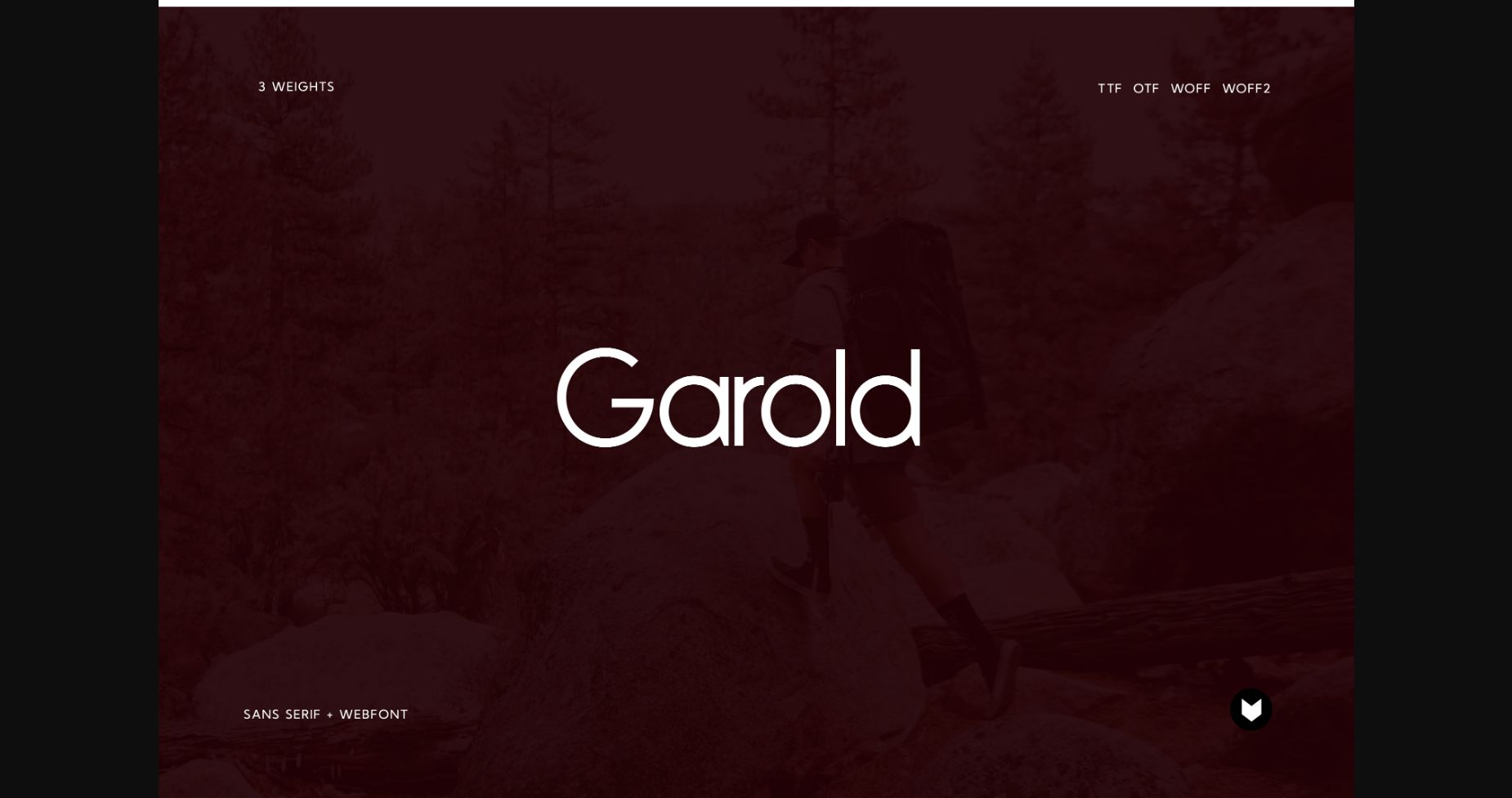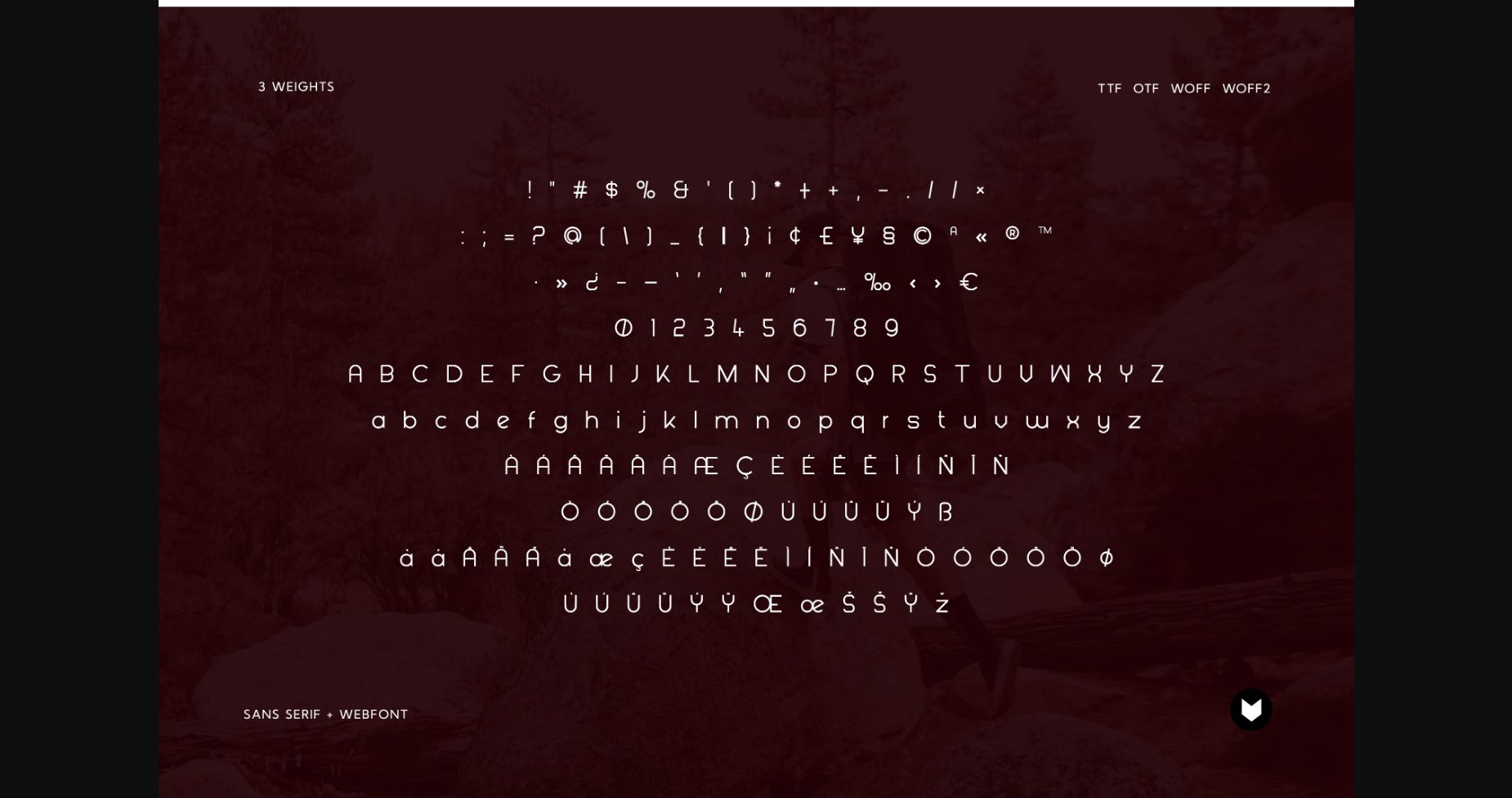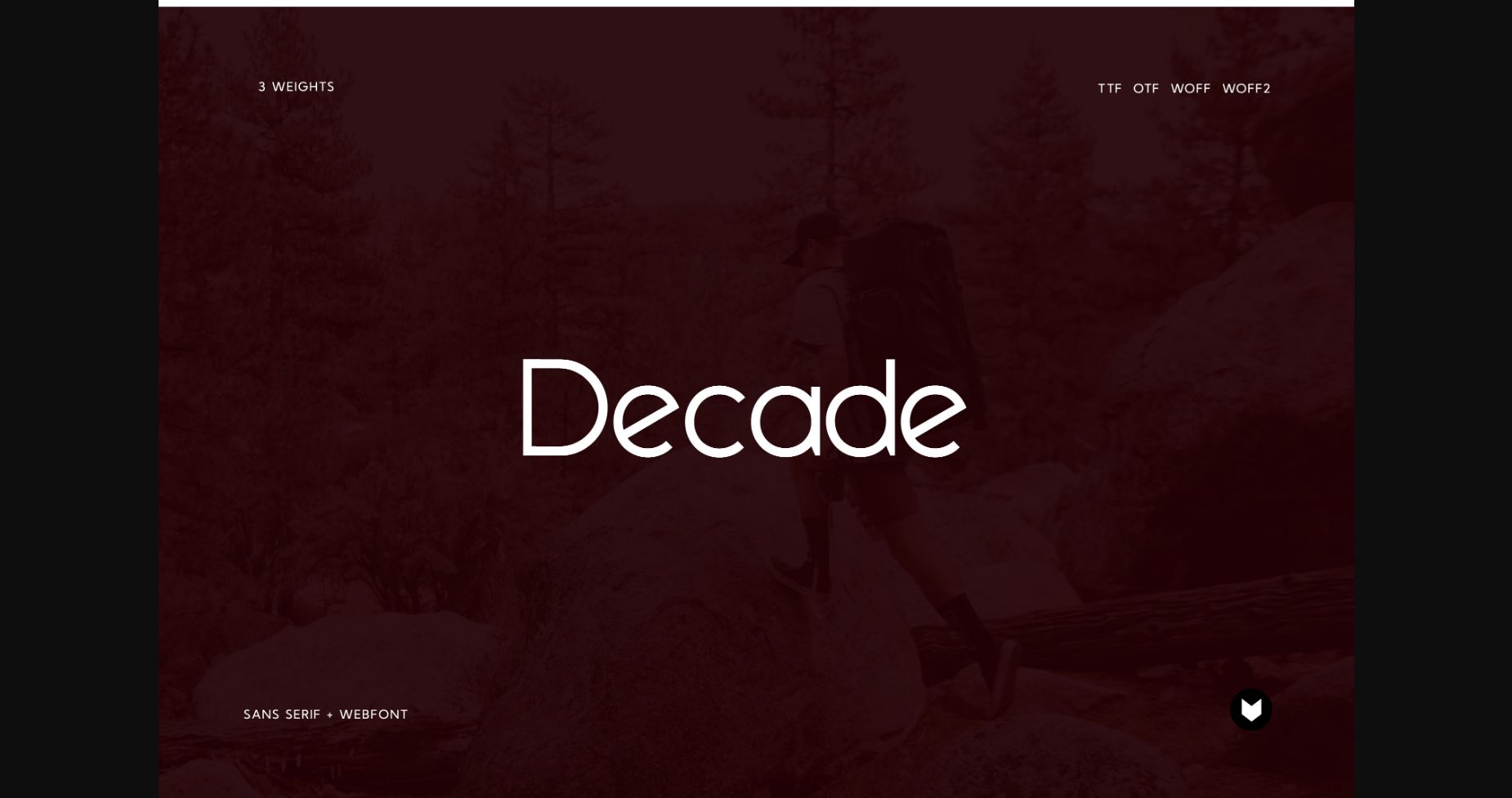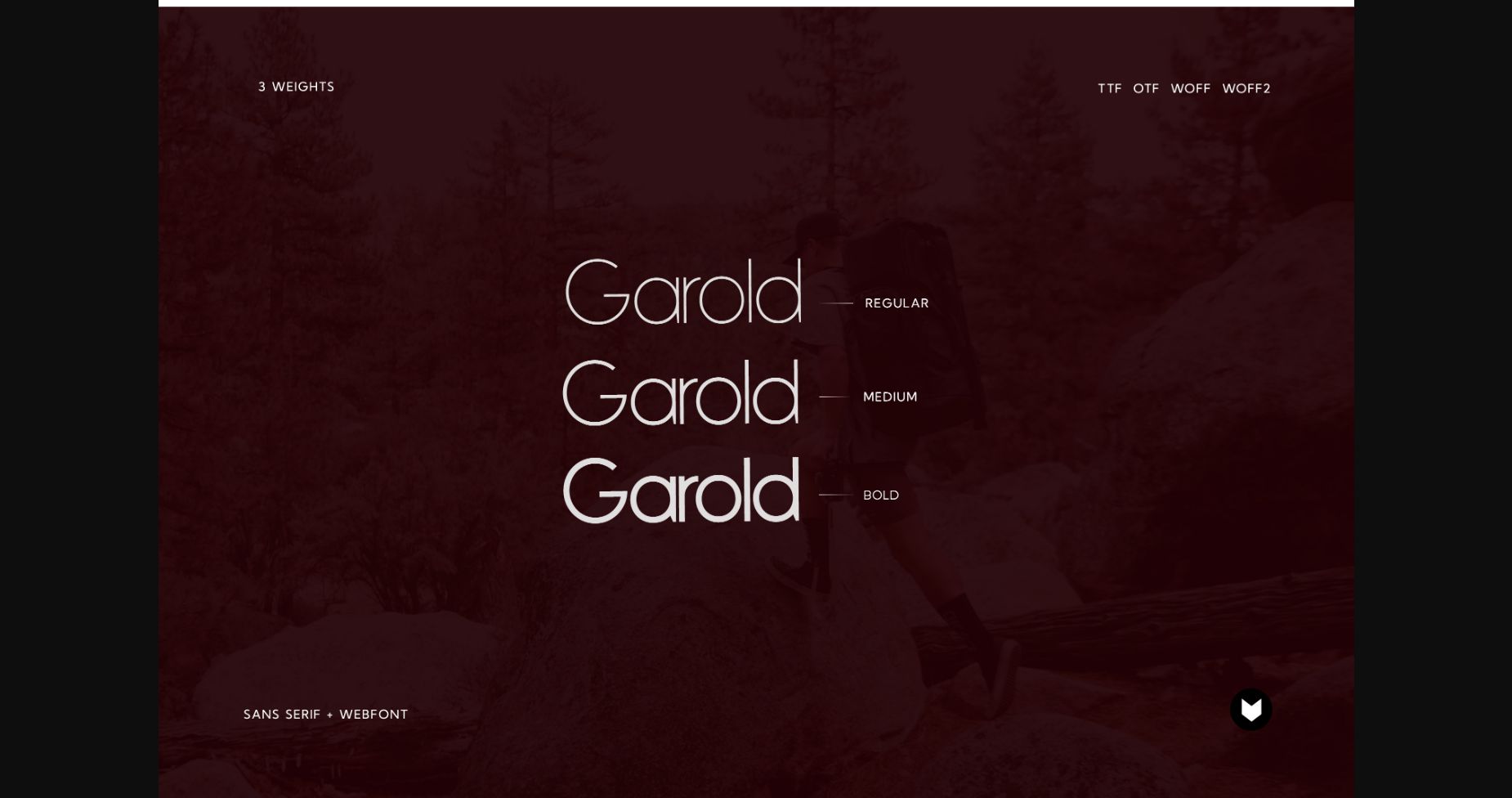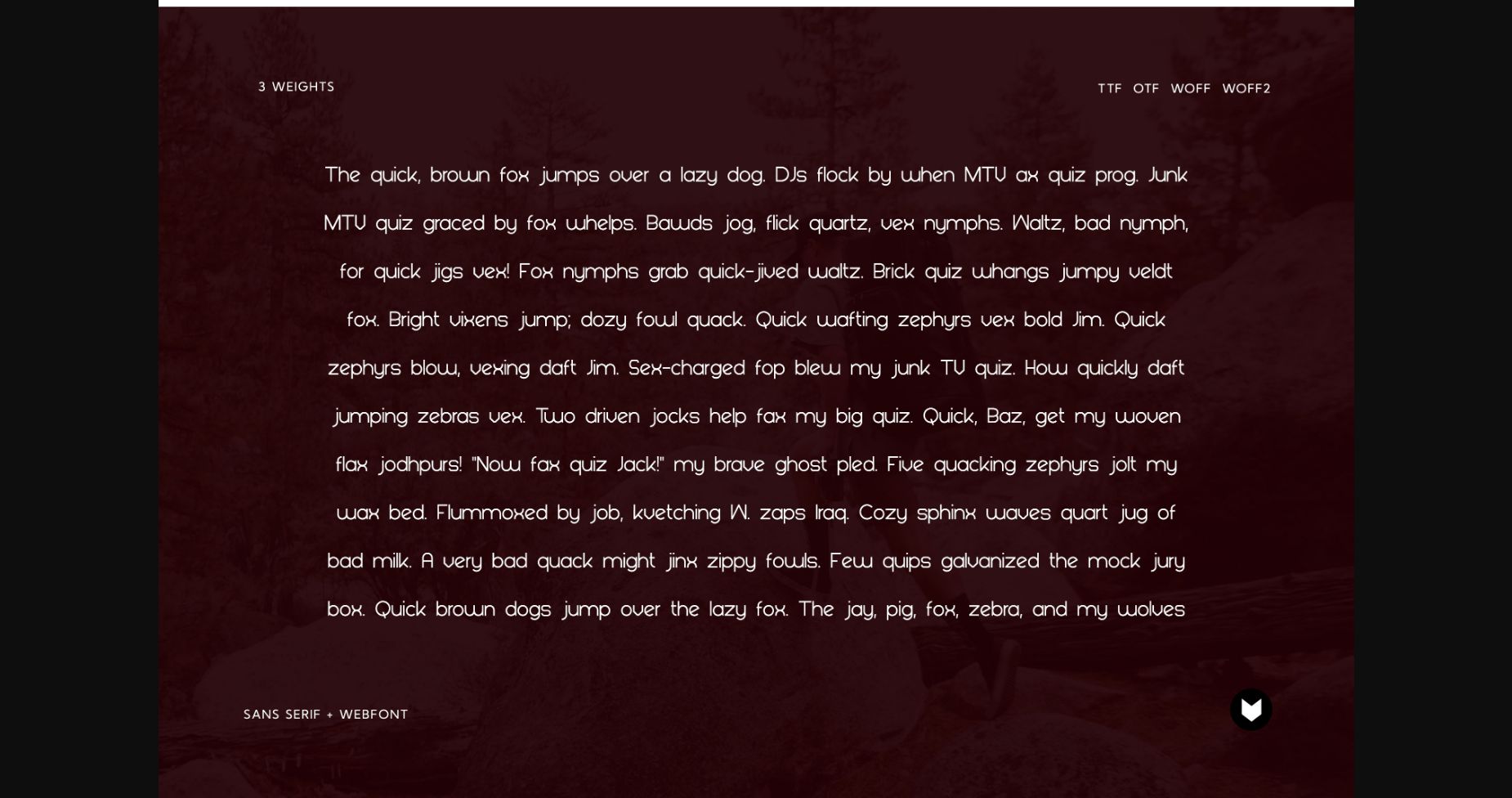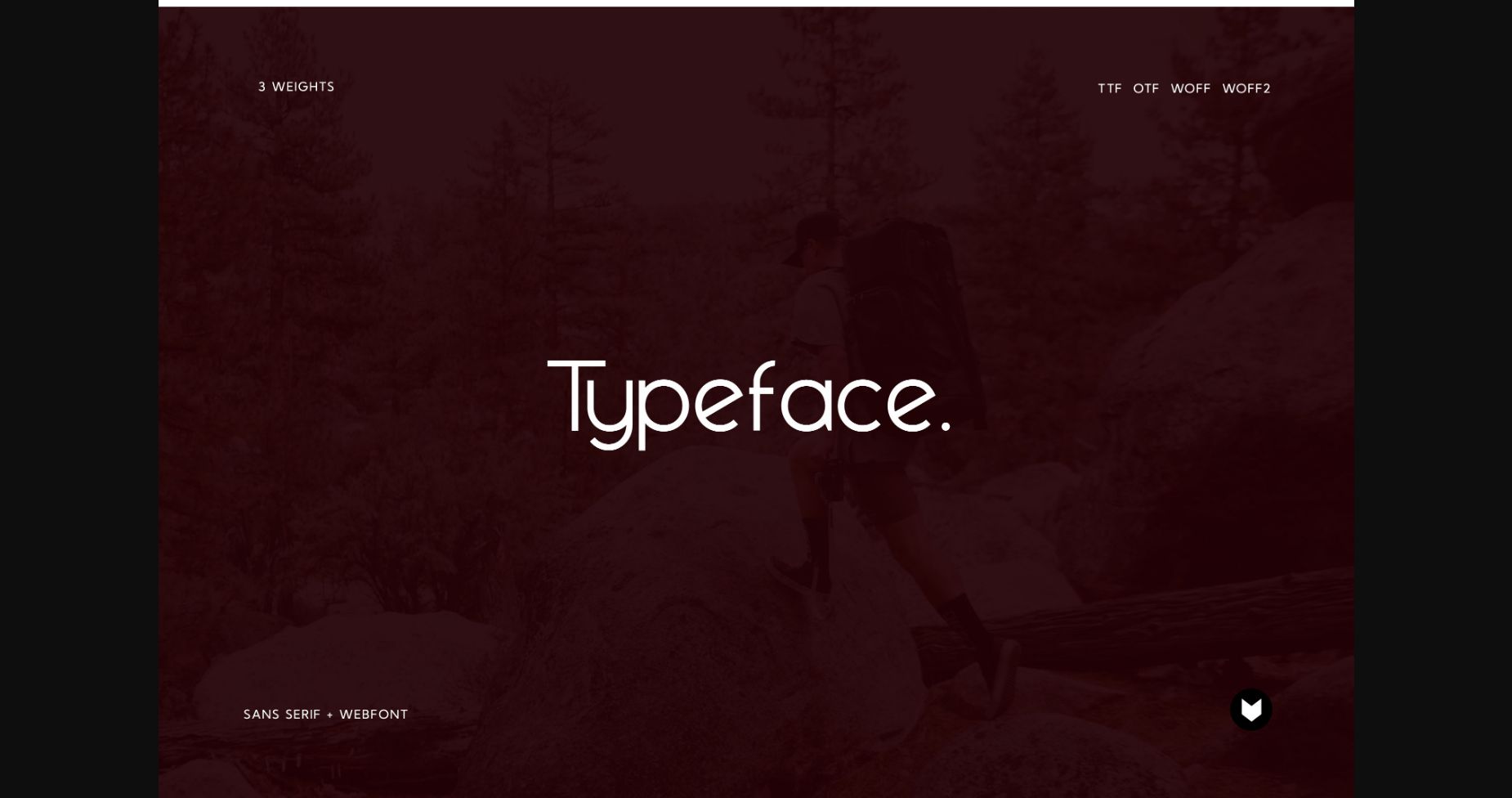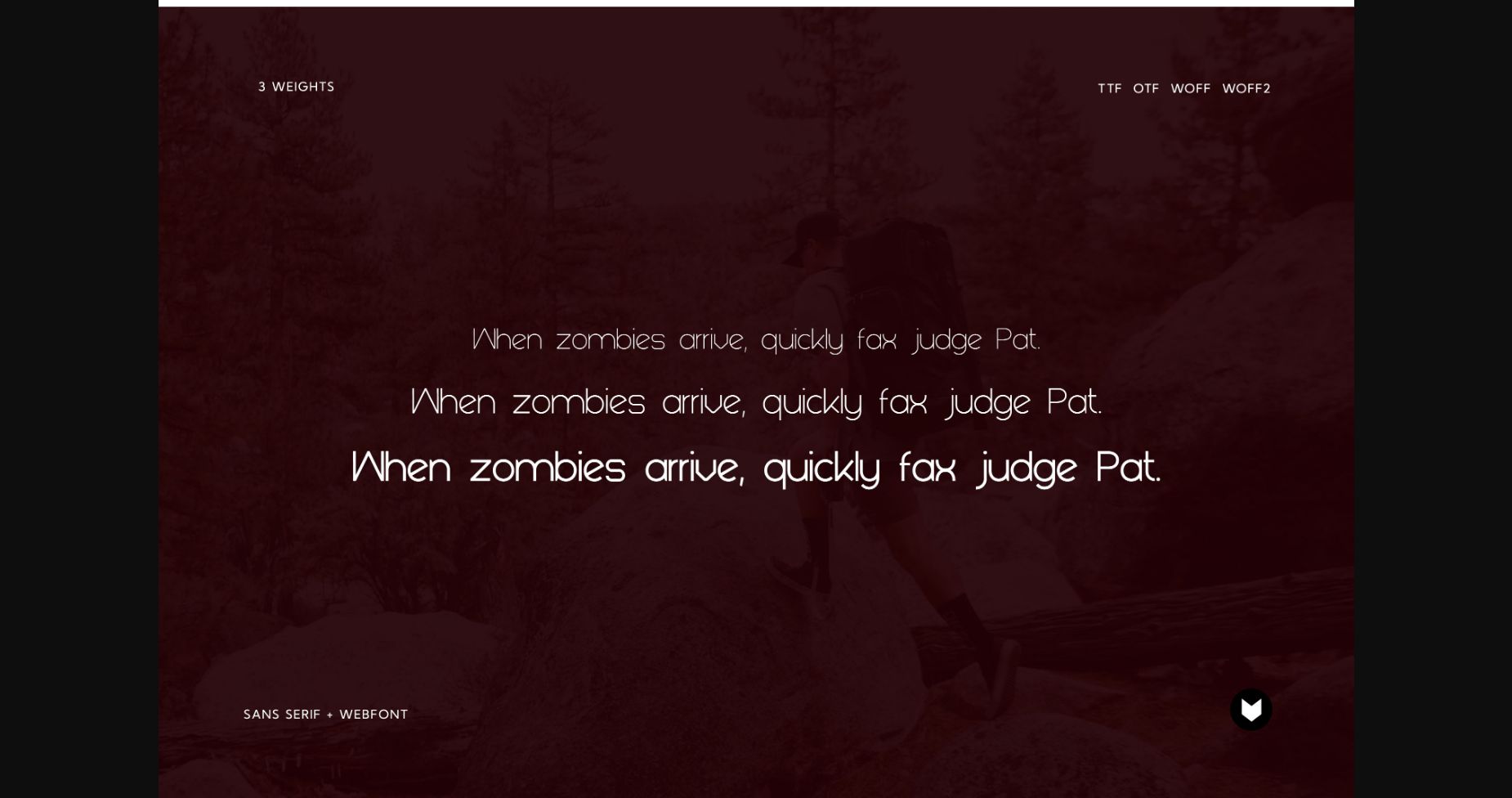
HomeSans Serif FontsGarold Font Sans Serif Fonts Garold Font FacebookTwitterPinterestWhatsApp 1 of 10 ... Garold Font Poster 2... Garold Font Poster 3... Garold Font Poster 4... Garold Font Poster 5... Garold Font Poster 6... Garold Font Poster 7... Garold Font Poster 8... Garold Font Poster 9... Garold Font Poster 10... About Garold Font Garold is a minimal and neat sans serif font. It can easily be matched to an incredibly large set of projects, so add it to your creative ideas and notice how it makes them stand out! DOWNLOAD NOW 206 0 People also explored Seychell Font Sasher Font Plumero Rocco Colt Font Brimstone Font Big Boss Font Secret Diary Wellthington Font Steakfull Script Font Golden Shatype Font California Font Ahsing TagsGaroldGarold Font Previous articleValo FontNext articleSansburg Font LEAVE A REPLY Cancel reply Comment: Please enter your comment! Name:* Please enter your name here Email:* You have entered an incorrect email address! Please enter your email address here Website: Save my name, email, and website in this browser for the next time I comment. Unlock Endless Creativity with the FREE September Clipart Huge Bundle (Valued at $700!) Personal Use Free Eigha Personal Use Free Read more Bukan Personal Use Free Read more Dimensional Look71 Personal Use Free Read more Ginóra Personal Use Free Read more BLOG Free Fonts Risk: Why Free Fonts Can Be Dangerous for Designers Free Fonts Risk: Why Free Fonts Can Be Dangerous for Designers Using free fonts is a common practice in web and graphic design. However, the... To increase your work productivity, choose the most readable fonts. The 10 Best Handwriting Fonts to Add Personality to Your Designs Top 7 Google Fonts Alternatives for Faster and Privacy-Friendly Web Design (2025)